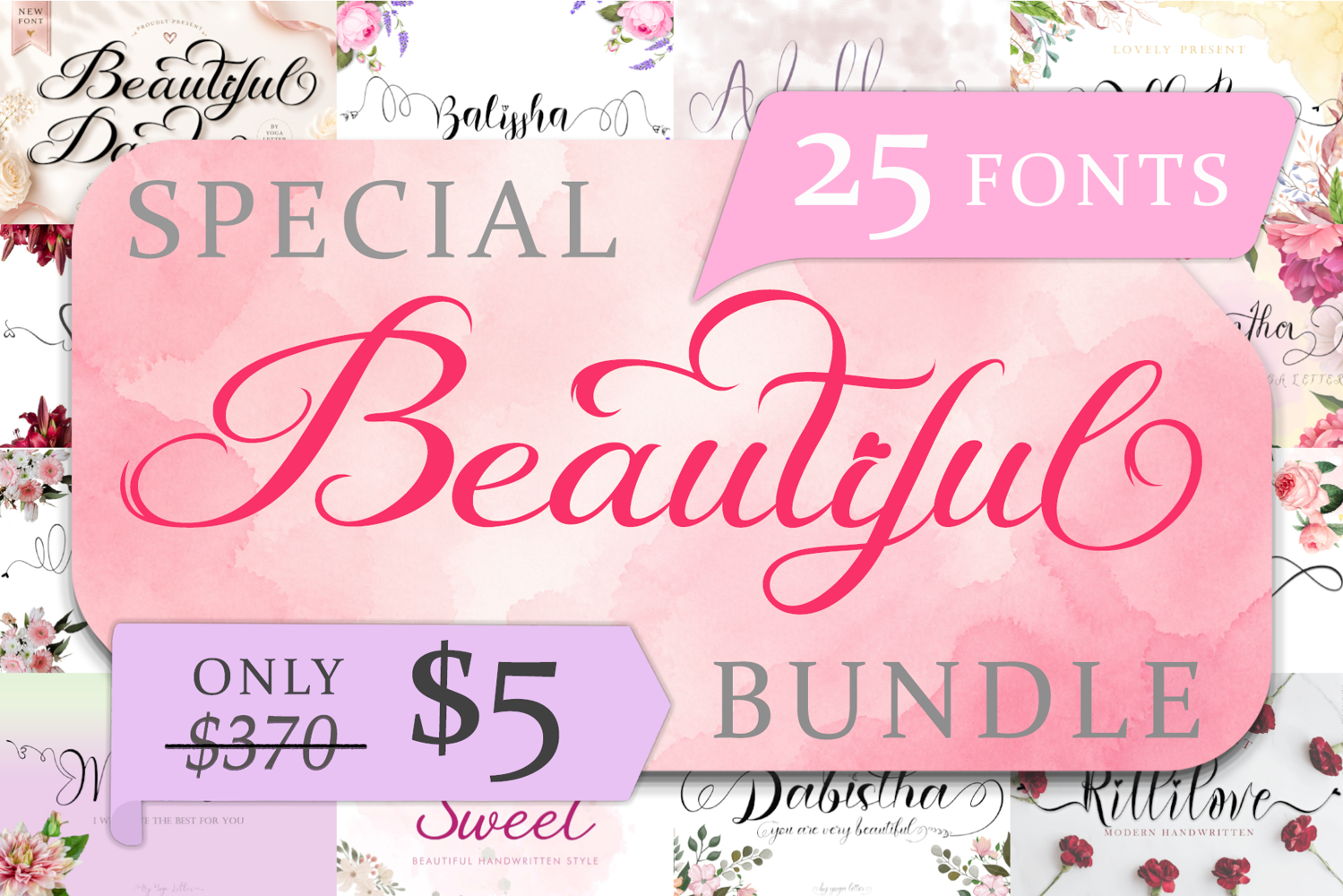
Beautiful Special Bundle
This package contains 25 stunning fonts for you to use in your upcoming projects.
This Bundle contains 25 beautiful fonts:
1. Mikella https://fontbundles.net/yogaletter6/949675-mikella
2. ⁠Betharia https://fontbundles.net/yogaletter6/969685-betharia
3. ⁠Bialletta https://fontbundles.net/yogaletter6/949666-bialletta
4. ⁠Adellia https://fontbundles.net/yogaletter6/946429-adellia
5. ⁠Shalitta https://fontbundles.net/yogaletter6/943256-shalitta
6. ⁠Khalitta https://fontbundles.net/yogaletter6/969654-khalitta
7. ⁠Meillea https://fontbundles.net/yogaletter6/937018-meillea
8. ⁠Alletha https://fontbundles.net/yogaletter6/937062-alletha
9. ⁠Sherllia https://fontbundles.net/yogaletter6/938920-sherllia
10. ⁠Rossaline https://fontbundles.net/yogaletter6/936870-rossaline
11. ⁠Rillilove https://fontbundles.net/yogaletter6/936919-rillilove
12. ⁠Beathria https://fontbundles.net/yogaletter6/936966-beathria
13. ⁠Astherlia https://fontbundles.net/yogaletter6/936811-astherlia
14. ⁠Berthessa https://fontbundles.net/yogaletter6/938974-berthessa
15. ⁠Billetha https://fontbundles.net/yogaletter6/954473-billetha
16. ⁠Monalissa https://fontbundles.net/yogaletter6/976730-monalissa
17. ⁠Dabistha https://fontbundles.net/yogaletter6/995409-dabistha
18. ⁠Balissha https://fontbundles.net/yogaletter6/995412-balissha
19. ⁠Roshalia https://fontbundles.net/yogaletter6/1015415-roshalia
20. ⁠Bhaillia https://fontbundles.net/yogaletter6/1018656-bhaillia
21. ⁠Dhefentha https://fontbundles.net/yogaletter6/1028952-dhefentha
22. ⁠Mella Sweet https://fontbundles.net/yogaletter6/1380636-mella-sweet
23. ⁠Beautiful Danila https://fontbundles.net/yogaletter6/6735750-beautiful-danila
24. ⁠Ametha Sweet https://fontbundles.net/yogaletter6/6324731-ametha-sweet
25. ⁠Angelia Valentine https://fontbundles.net/yogaletter6/3105827-angelia-valentine